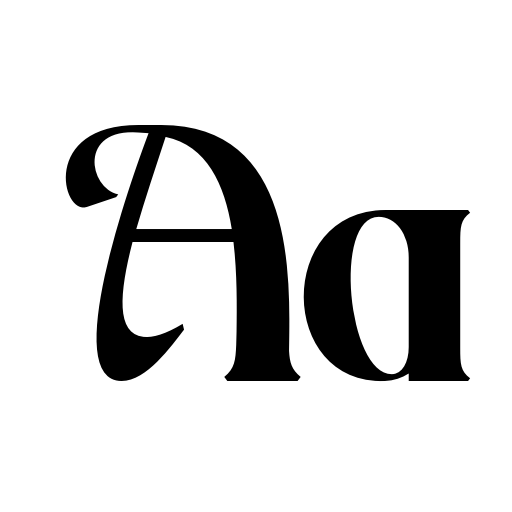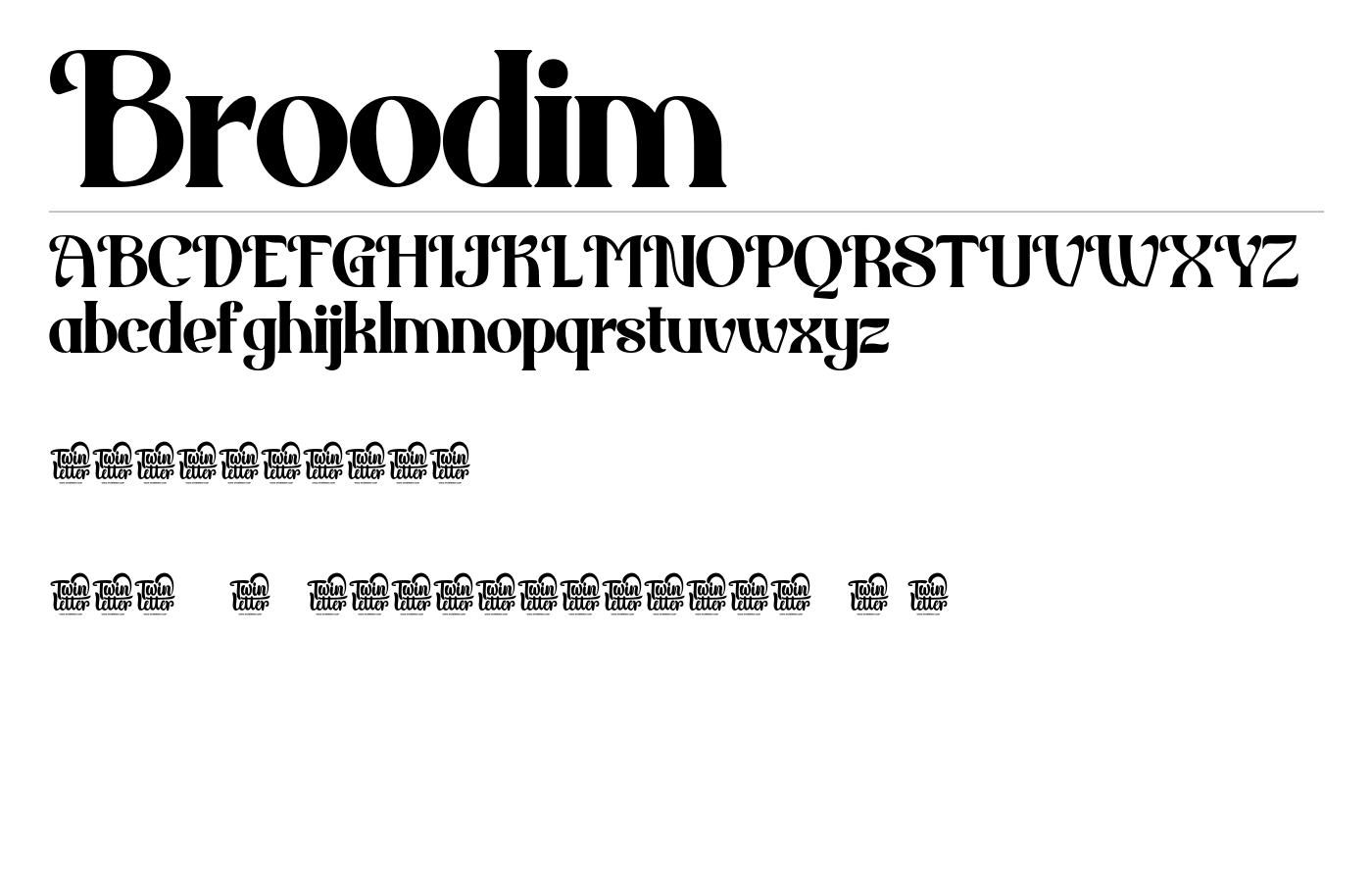
Broodim is a bold serif font with strong contrast between thick and thin strokes, featuring unique, playful terminals and bracketed serifs that give it a distinctive, elegant flair. Its condensed width and prominent x-height make it suitable for eye-catching headlines and branding that seek a blend of vintage charm and modern sophistication. This font works well for luxury packaging, editorial titles, and sophisticated logos where a stylish yet readable impact is desired.
Broodim Font
About Broodim Font